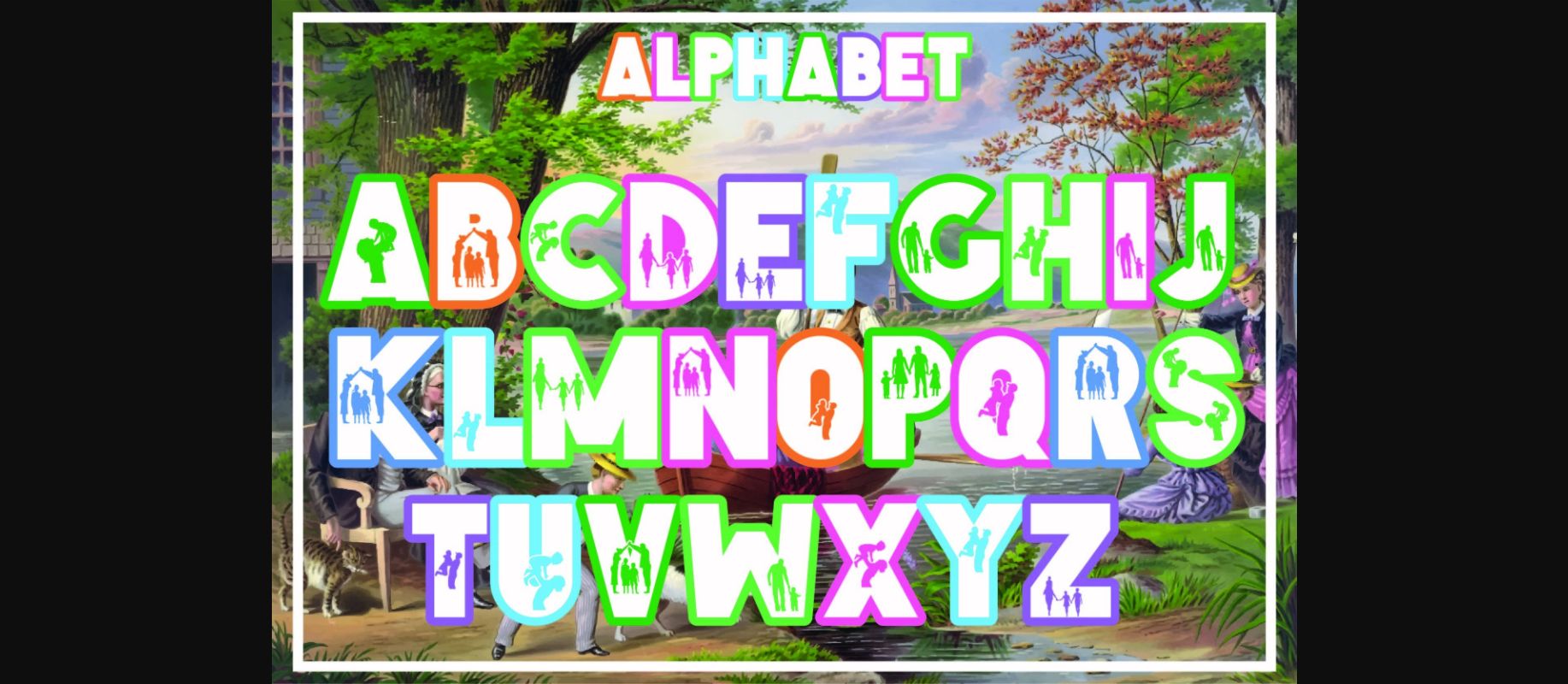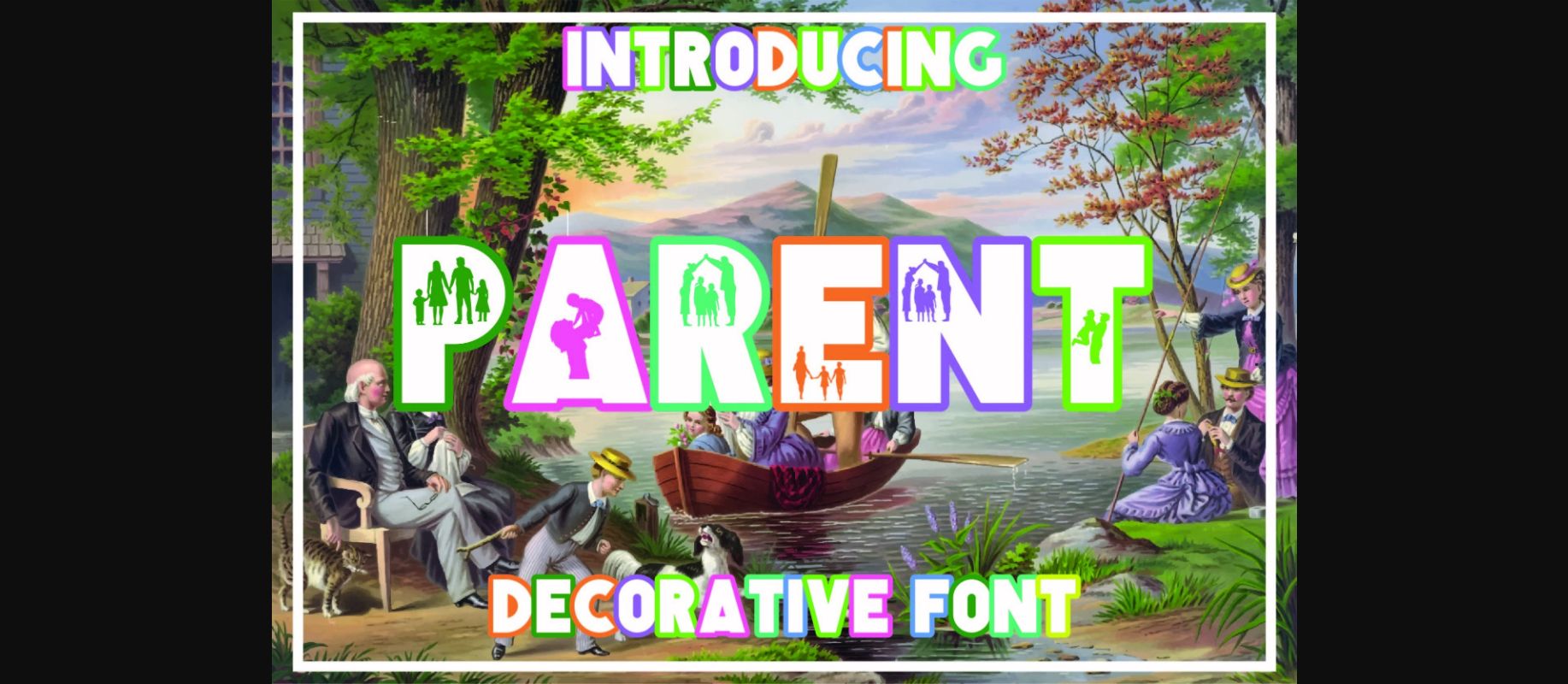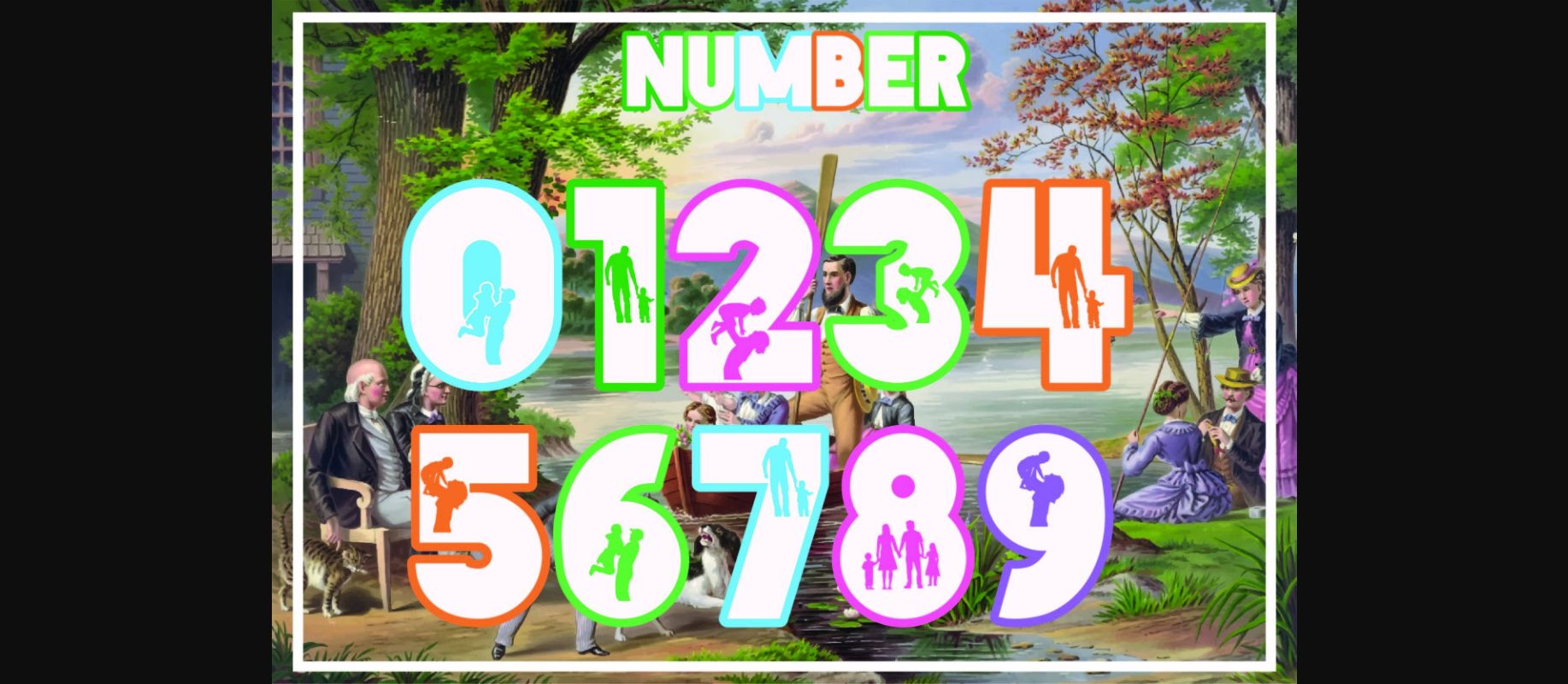
About Parent Font
Parent is a cool and thick-lettered decorative font with a family theme inside the bold characters. It will look stunning on any poster, flyer, or print.
Use this font for your designs and explore its endless possibilities!